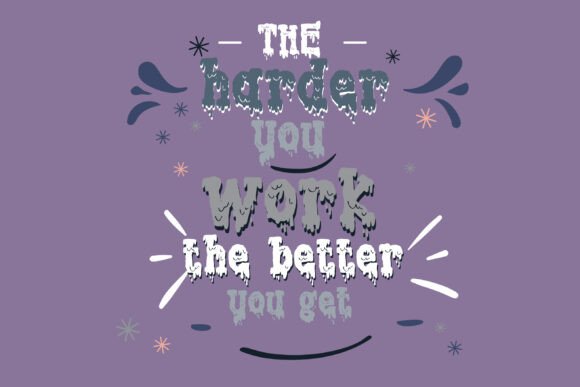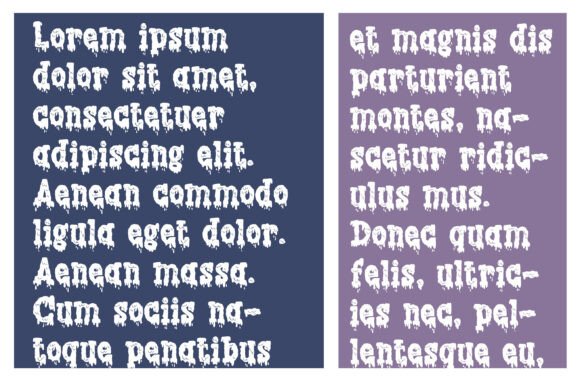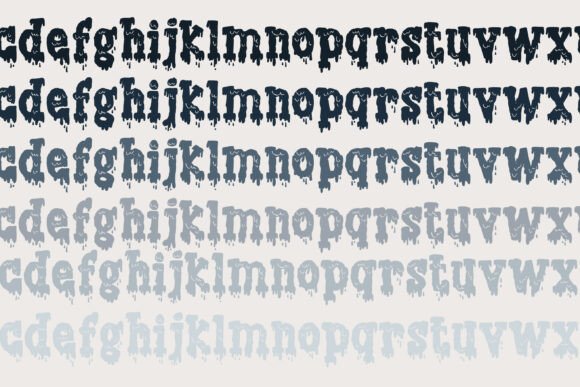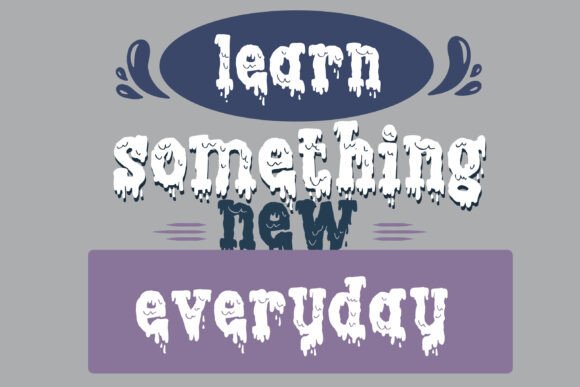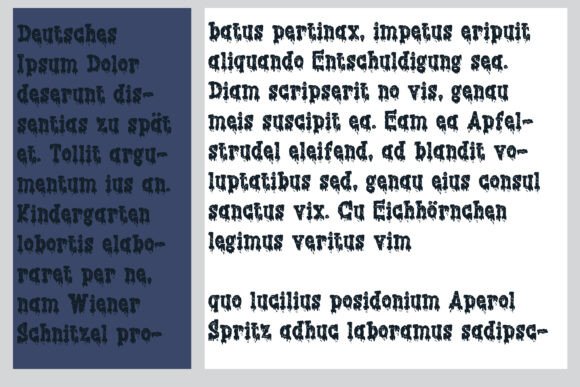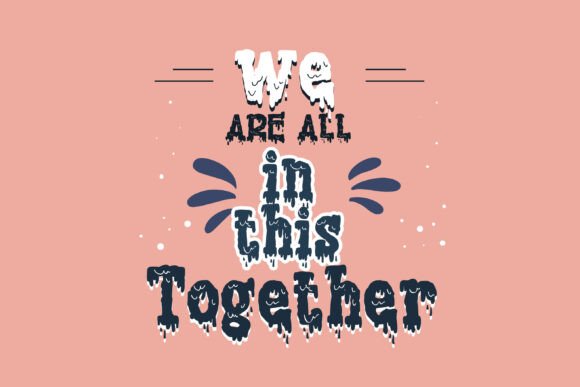
Brain Ooze Font: The Ultimate Guide to this Drippy, Oozing Typeface
Are you tired of using the same old fonts for your designs? Look no further than the Brain Ooze Font, a hand-crafted typeface that is sure to make your projects stand out. This unique font features drippy, oozing brains and gooey serifs, giving it a one-of-a-kind look that is perfect for designers and crafters who want to add a touch of personality to their work.
A hand-crafted font is a font that is designed to look like it was written by hand. It is often used for invitations, greeting cards, and other items where a personal touch is desired. Handwritten fonts can be either formal or informal, and they can be used for a variety of purposes. They are perfect for adding a touch of whimsy and personality to your designs.
The Unique Features of Brain Ooze Font
The Brain Ooze Font is a truly unique typeface that is sure to turn heads. Its drippy, oozing brains and gooey serifs give it a creepy-cool look that is perfect for designers and crafters who want to add a touch of edginess to their work. The font is hand-crafted, which means that it has a personal, handwritten feel that is perfect for invitations, greeting cards, and other items.
Uses for Brain Ooze Font
The Brain Ooze Font is a versatile typeface that can be used for a variety of purposes. Here are a few ideas to get you started:
- Invitations: Use the Brain Ooze Font to create unique and eye-catching invitations for parties, weddings, and other special events.
- Greeting Cards: Add a touch of personality to your greeting cards with the Brain Ooze Font.
- Signs: Use the Brain Ooze Font to create eye-catching signs for your business or event.
- Social Media Graphics: Add a touch of edginess to your social media graphics with the Brain Ooze Font.
Tips for Using Brain Ooze Font
Here are a few tips for using the Brain Ooze Font in your designs:
- Use it sparingly: Because of its unique look, the Brain Ooze Font is best used sparingly. Use it as an accent font to add a touch of personality to your designs.
- Pair it with a simple font: Pair the Brain Ooze Font with a simple font to create a striking contrast.
- Experiment with colors: The Brain Ooze Font looks great in a variety of colors. Experiment with different colors to find the one that works best for your design.
The Brain Ooze Font is a unique and versatile typeface that is perfect for designers and crafters who want to add a touch of personality to their work. Its drippy, oozing brains and gooey serifs give it a creepy-cool look that is sure to turn heads. With its hand-crafted look and feel, the Brain Ooze Font is perfect for invitations, greeting cards, signs, and other items. So why not give it a try and see what kind of amazing designs you can create?